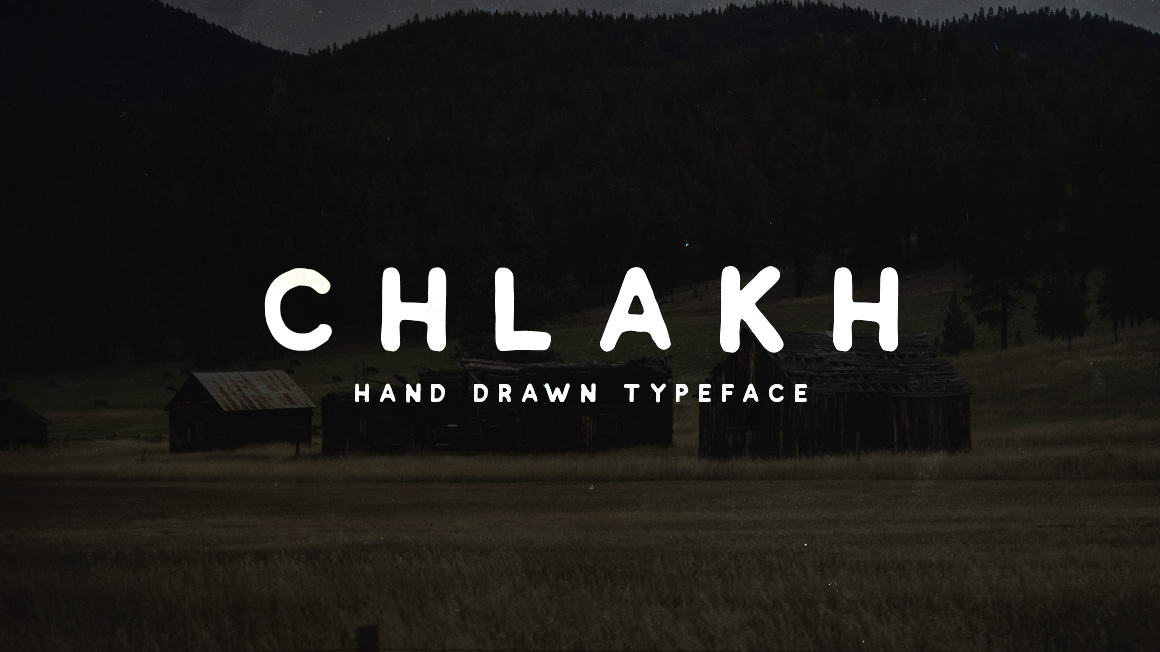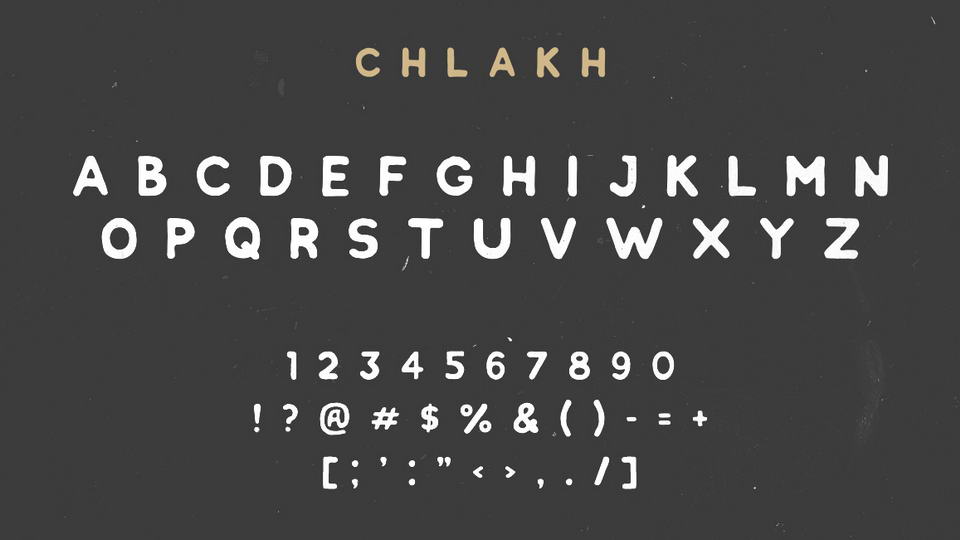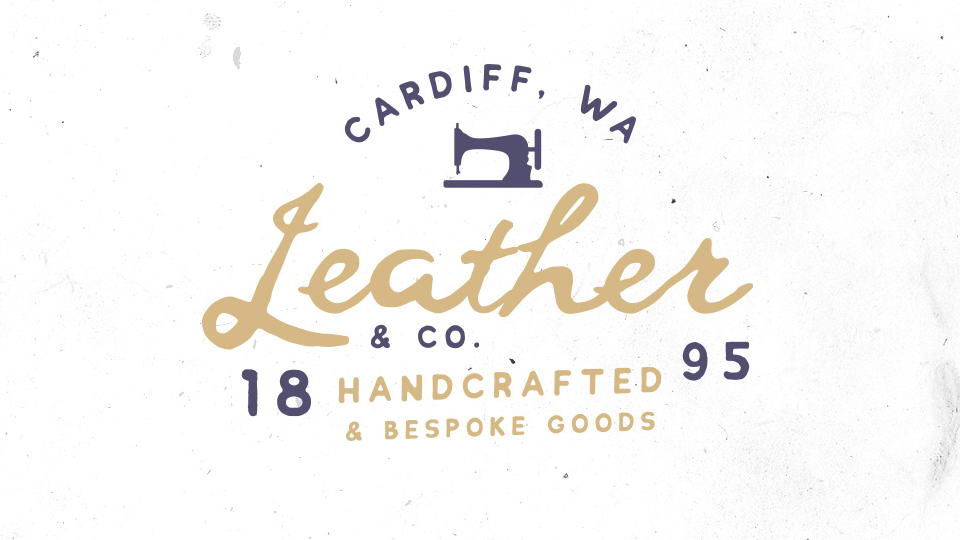
Chlakh is a free handmade vintage font. It contains all caps letters, numbers and symbols. Chlakh is perfect for creating retro logos, badges, labels. It’s also suitable for t-shirt prints, food packaging, business cards, flyers, posters, ads, restaurant menus, signs, typography design, quotes and any graphic design.